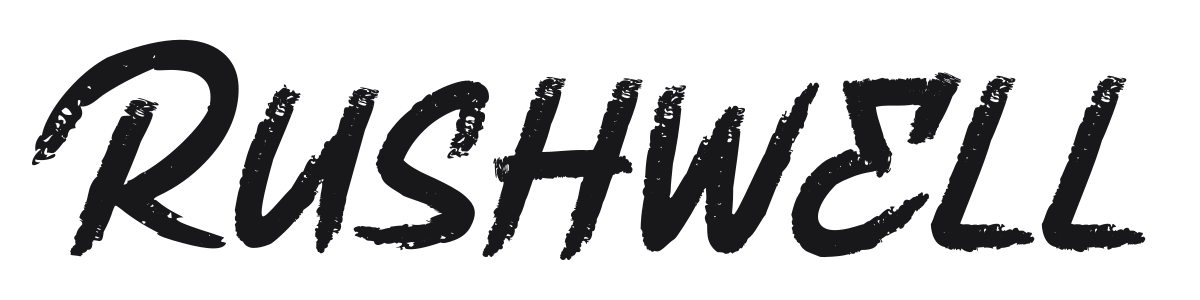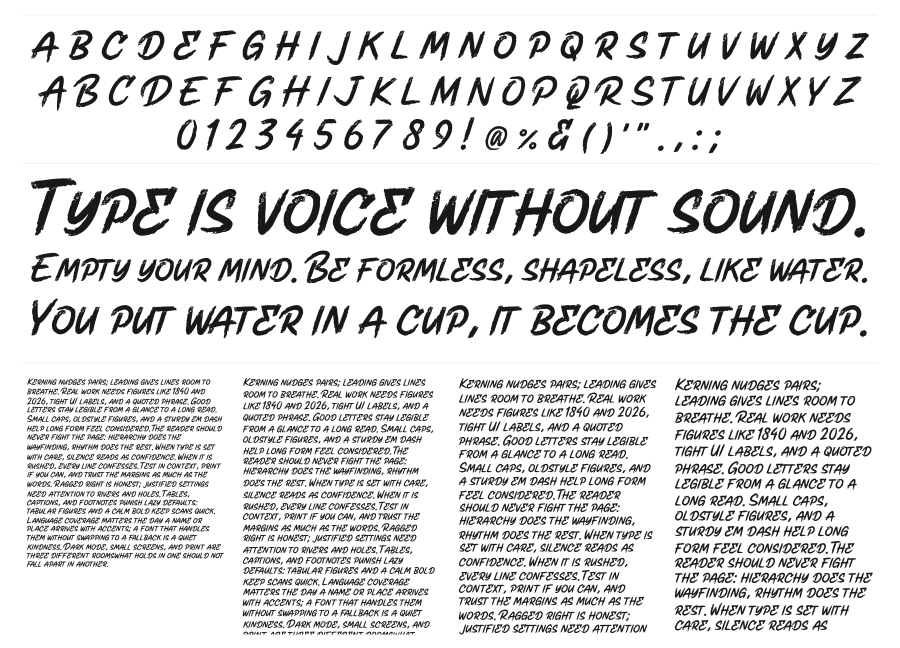
Rushwell
Rushwell is a bold, rough-textured brush script with an aggressive italic slant and heavy ink strokes. The dry-brush fraying and visible texture give it an authentic, hand-made energy that feels closer to marker lettering than polished calligraphy. Strong at large sizes for posters, apparel graphics, and anything that needs an unpolished, high-energy presence.